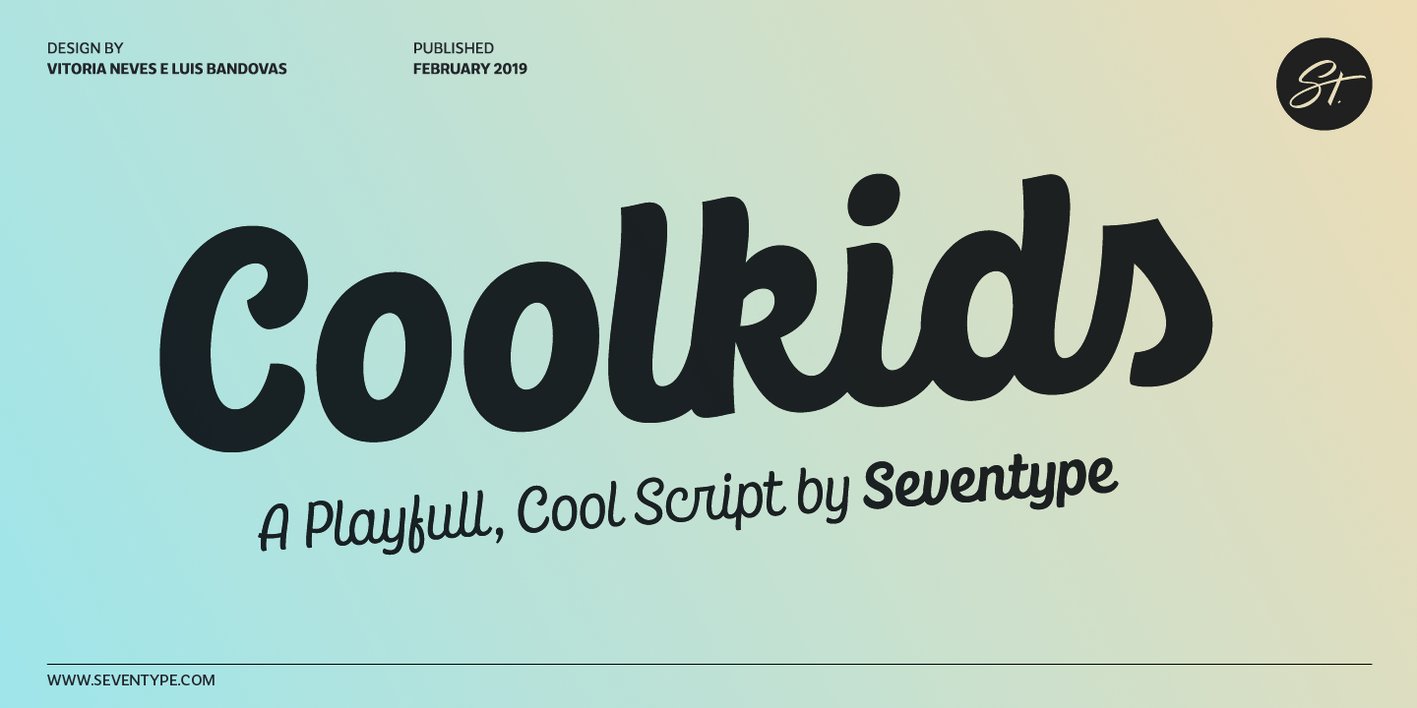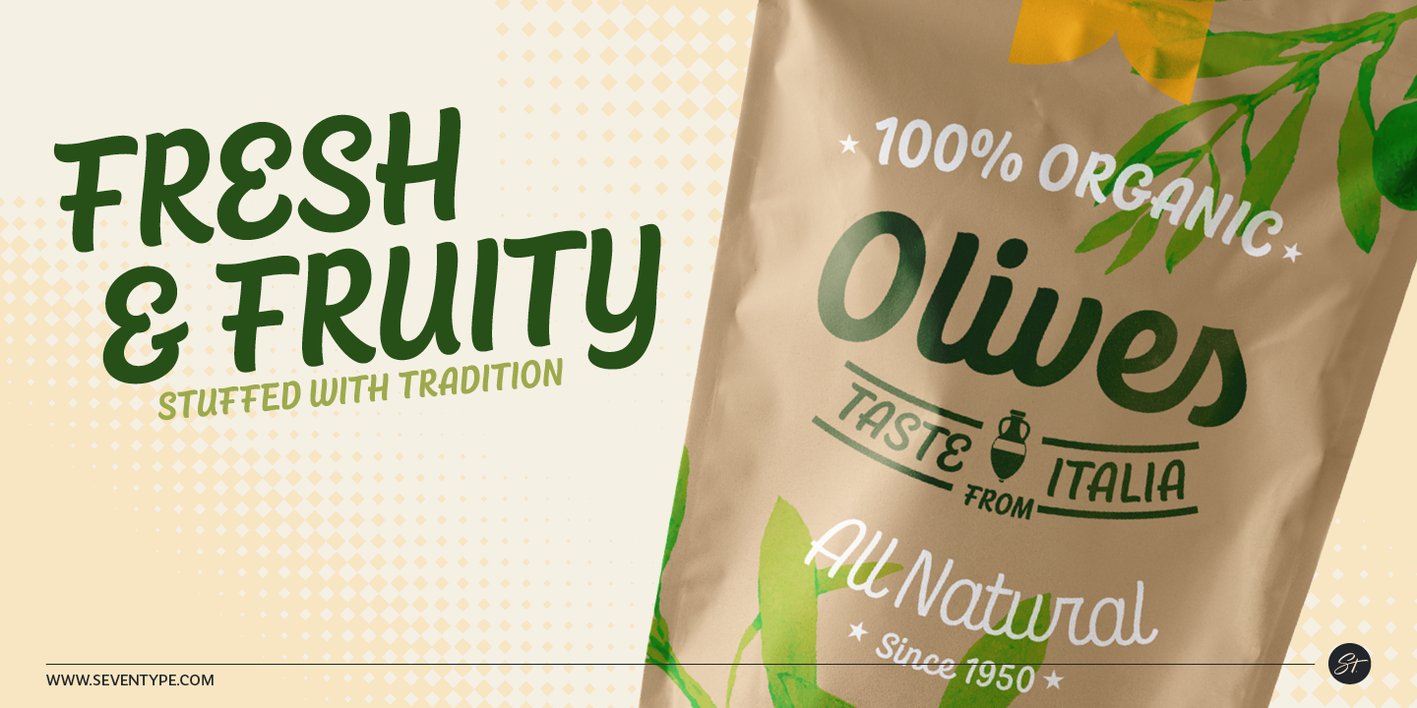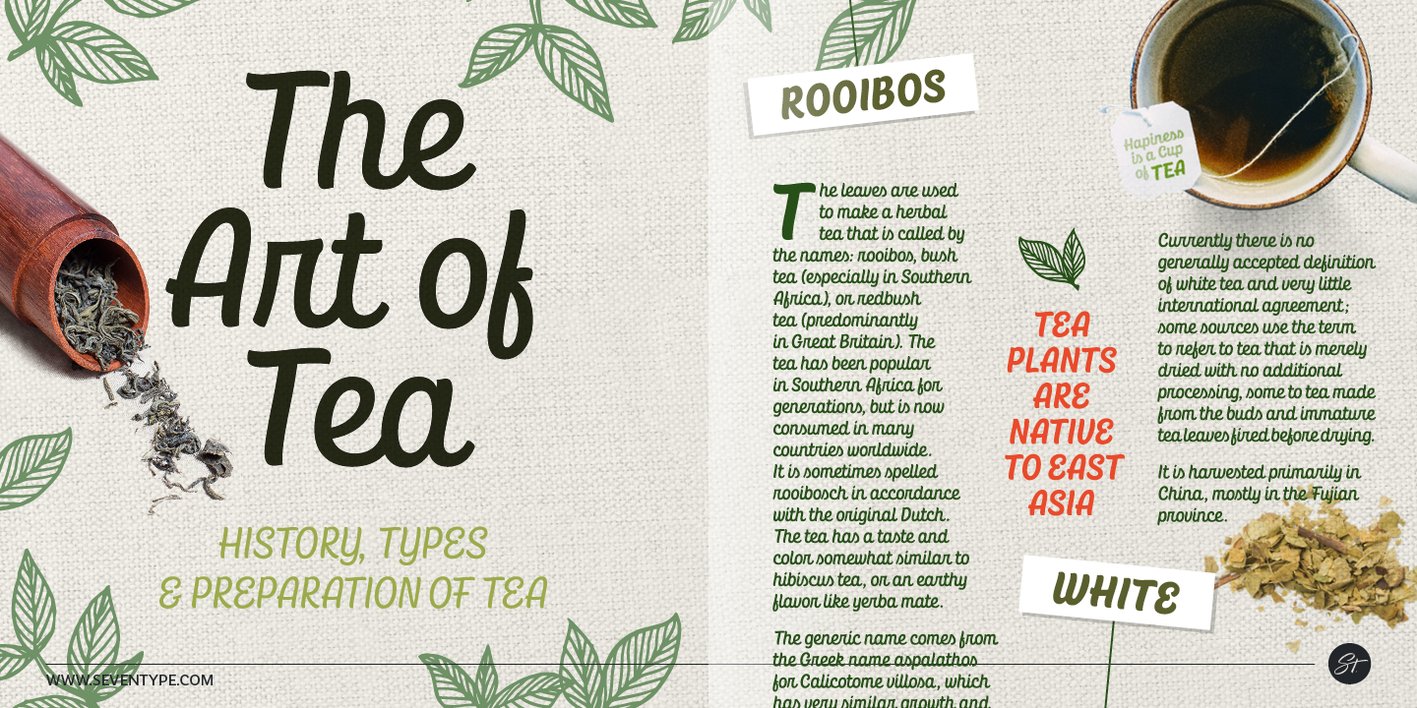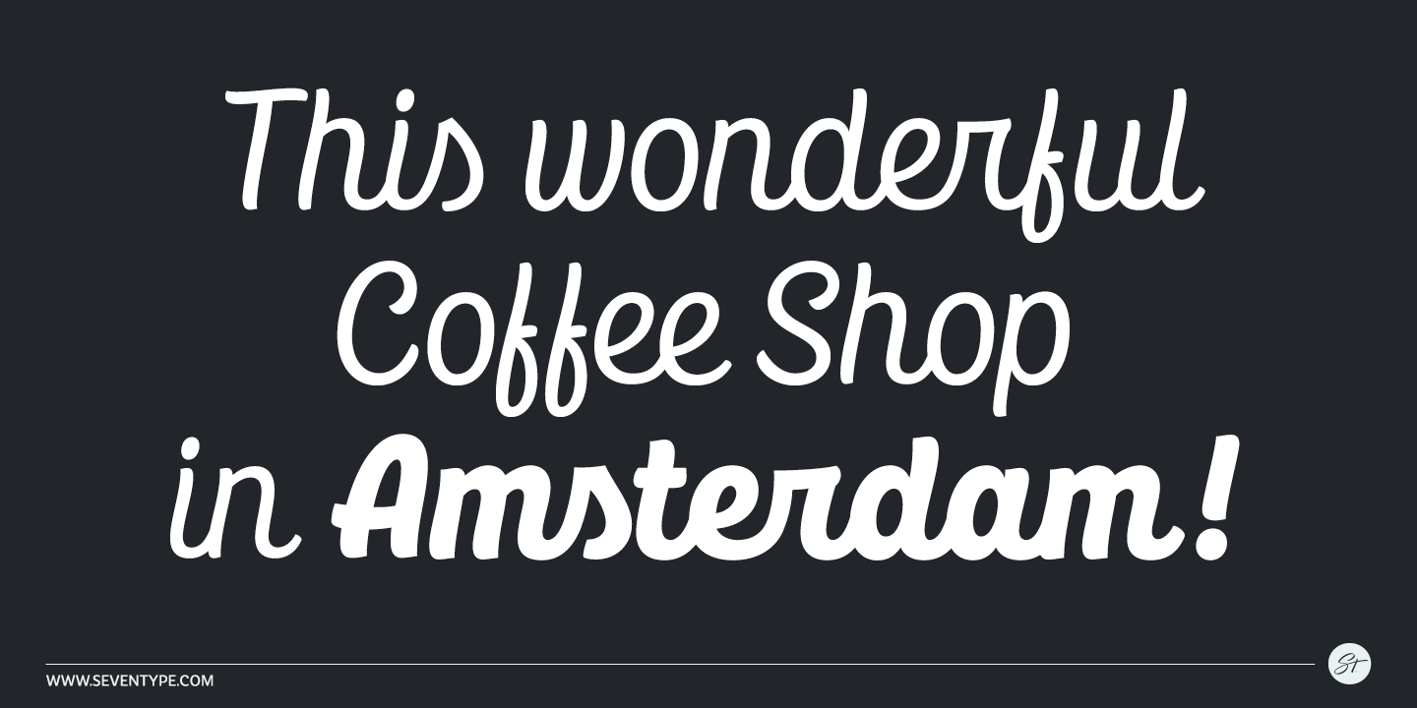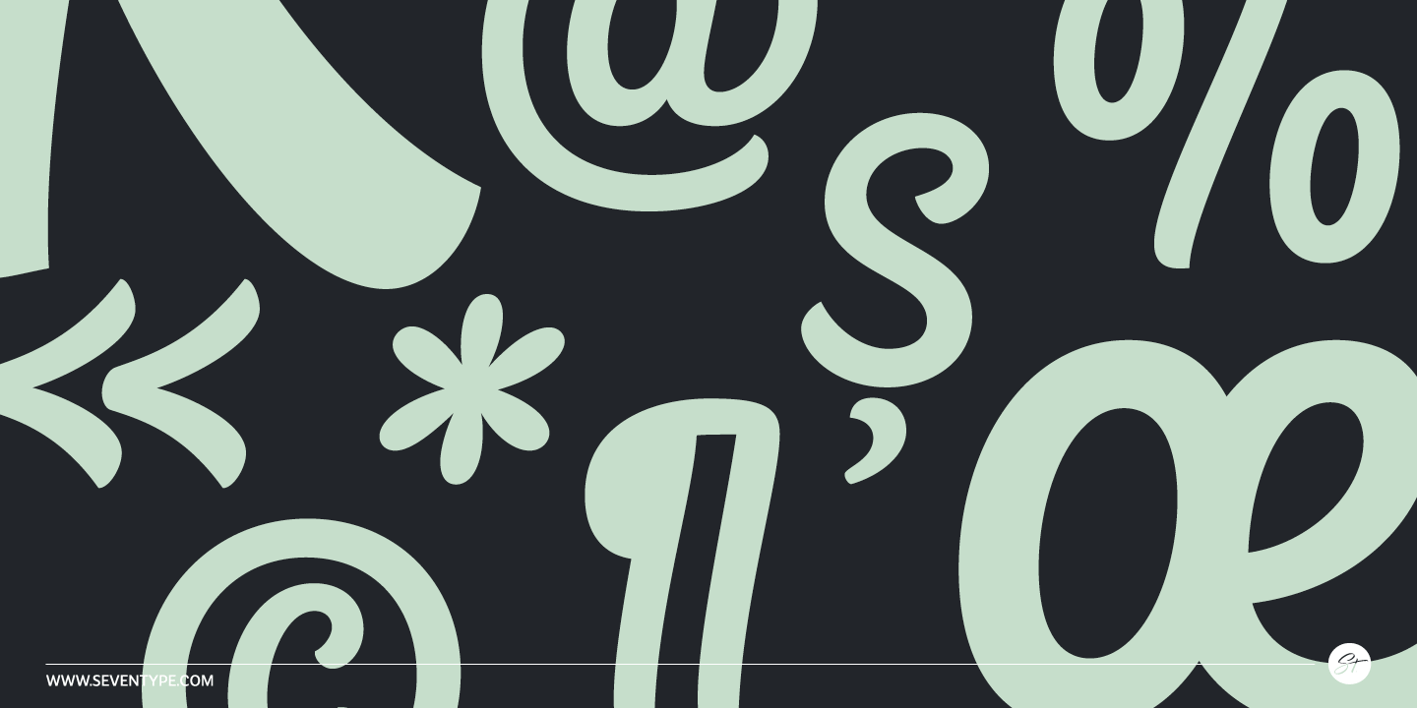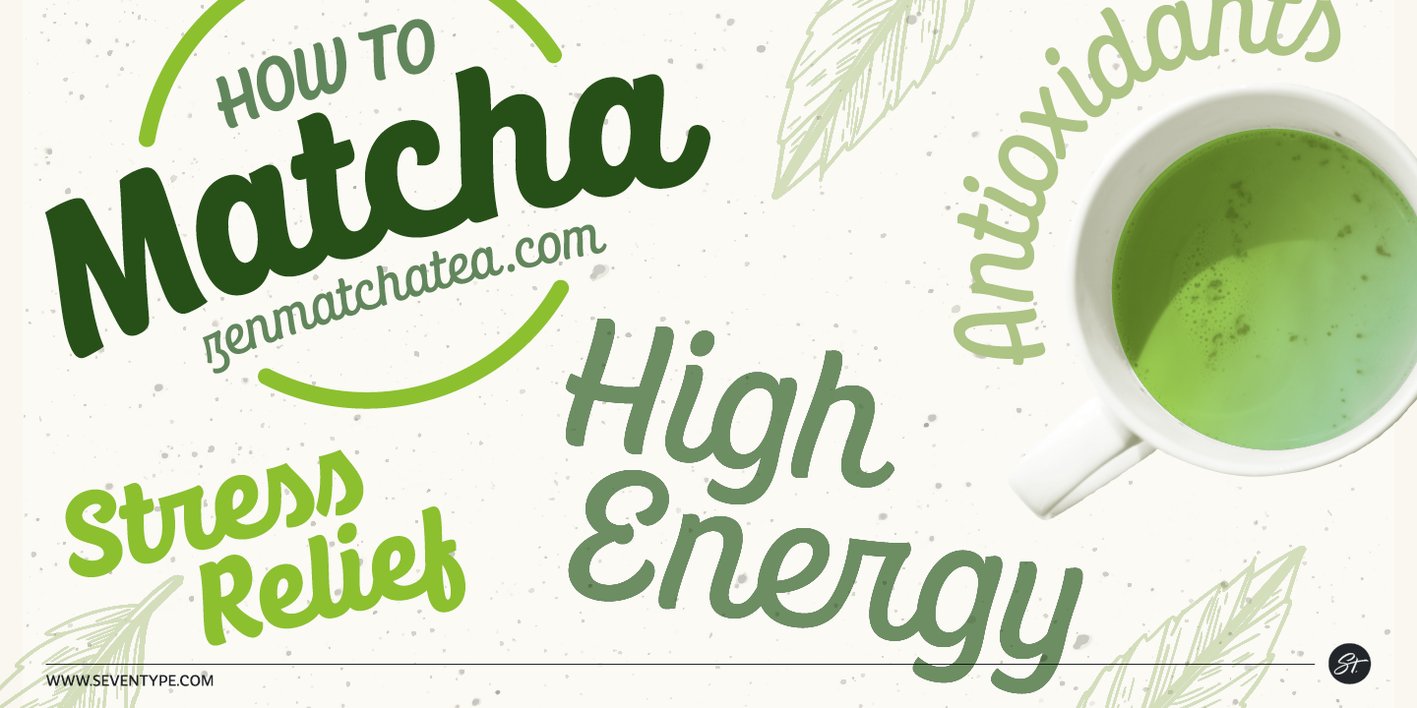
CoolKids Font
CoolKids Font is perfect for children's book covers, toy packaging design, kindergarten classroom displays, kids' birthday party invitations, playground signage, educational app interfaces, cartoon character branding, youth camp materials, children's clothing labels, and playful family restaurant menus. This vibrant typeface brings joy and energy to any child-focused design project.
CoolKids Font is exciting because it captures the boundless enthusiasm and creative spirit of childhood with its playful letterforms and dynamic character shapes. Its fun, approachable design instantly creates smiles and positive associations, making it irresistible to both children and parents who appreciate thoughtful, engaging design.
The CoolKids Font family includes Regular and Bold weights with decorative alternates, playful dingbats, fun symbols, and colorful accent characters that enhance the cheerful aesthetic, providing designers with comprehensive tools for creating engaging child-friendly communications.
Educational designers love CoolKids Font for its exceptional readability and its ability to make learning materials more engaging and approachable. The font's friendly character shapes and optimistic personality help create positive associations with reading and education, making it an invaluable tool for teachers, publishers, and educational technology companies.
The design philosophy behind CoolKids Font emphasizes inclusivity and accessibility, ensuring that children of all backgrounds can connect with its welcoming aesthetic. Creative teams working on children's products appreciate its balance of playfulness and professionalism, which appeals to kids while maintaining credibility with parents and educators.
Whether used for educational workbooks, children's app interfaces, or toy store branding, CoolKids Font delivers the perfect combination of fun and functionality. Its universal appeal and child-focused design make it an essential resource for anyone creating content that celebrates childhood wonder and supports young learners' development.